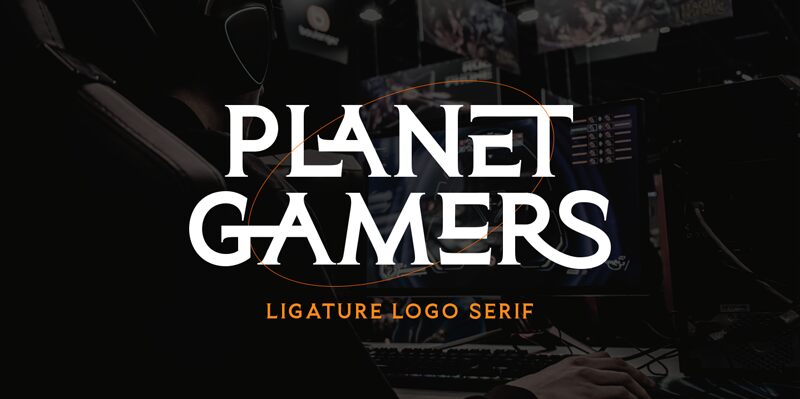
Planet Gamers is a stunning semi-light, ligature serif font designed by Saridezra. With its unique and elegant letterforms, this font is perfect for creating eye-catching headlines, logos, and branding projects that require a touch of sophistication. The semi-expanded width of the font makes it an excellent choice for posters, flyers, and other print materials where readability is key. This font is suitable for a variety of creative projects such as gaming blogs and websites, graphic design portfolios, fashion magazines, or even wedding invitations. Whether you're looking to elevate your designs or simply add some flair to your next project, Planet Gamers has got you covered!